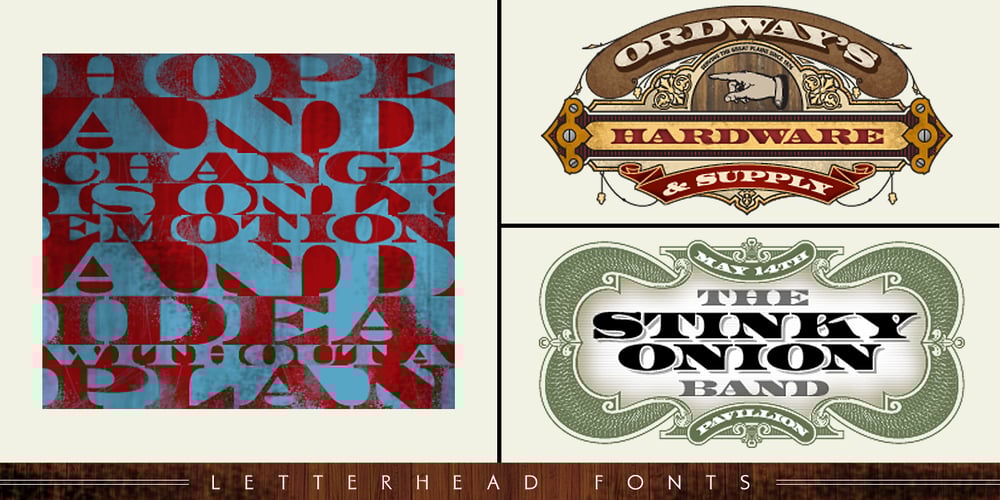
LHF Centennial Banker
LHF Centennial Banker font
LHF Centennial Banker Font Family was designed by Mike Jackson and published by Letterhead Fonts. LHF Centennial Banker contains 1 styles and family package options. A bold currency typeface that’s perfect for replicating the style of money and old stock certificates. Includes drop caps on lowercase characters.